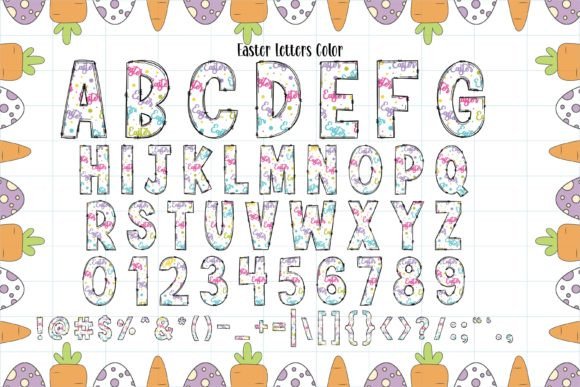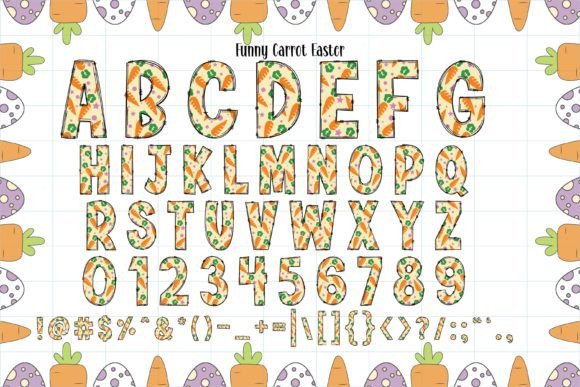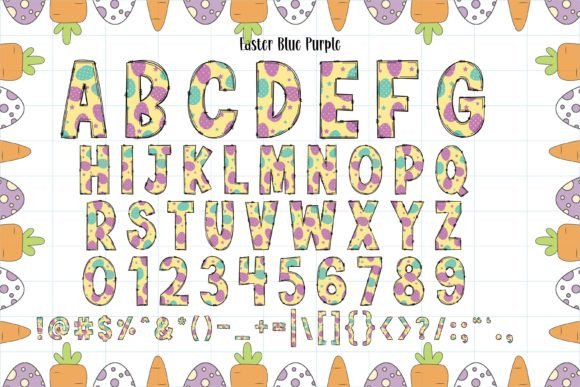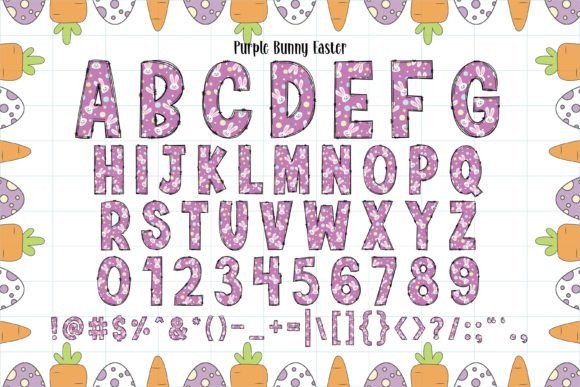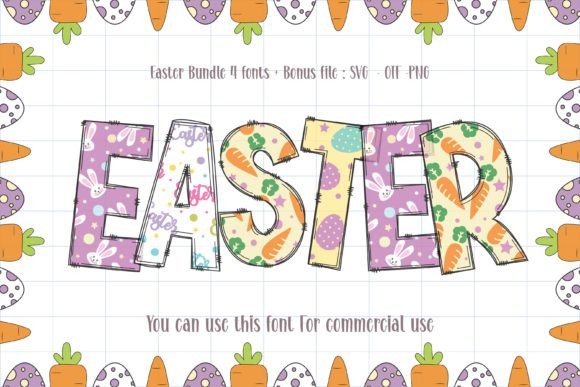
Easter Font: Add a Pop of Color to Your Designs
Easter is just around the corner, and what better way to celebrate than with a bold, fun, and attractive font that energizes your designs with vibrant hues? Look no further than the Easter Font, ideal for headlines, logos, and social media graphics. This unique and fun colored font is perfect for designers and crafters looking to add a touch of whimsy to their work.
What is Easter Font?
The Easter Font is a digital font that features vibrant, bold colors that are sure to make your designs stand out. With its fun and playful vibe, this font is perfect for creating eye-catching headlines, logos, and social media graphics. Whether you’re designing for Easter or just want to add a pop of color to your work, this font is sure to impress.
Key Features of Easter Font
- Bold and Vibrant Colors: The Easter Font features a range of vibrant colors that are sure to make your designs pop.
- Fun and Playful Vibe: This font has a fun and playful vibe that’s perfect for Easter-themed designs or any project that needs a touch of whimsy.
- Ideal for Headlines and Logos: The Easter Font is perfect for creating eye-catching headlines and logos that will grab attention.
- Social Media Graphics: Use this font to create engaging social media graphics that will stand out from the crowd.
- Easter-themed Designs: Use the Easter Font to create Easter-themed designs, such as Easter egg graphics, bunny logos, and spring-themed posters.
- Social Media Graphics: Use this font to create engaging social media graphics, such as Facebook posts, Instagram stories, and Twitter headers.
- Headlines and Logos: Use the Easter Font to create eye-catching headlines and logos for your website, blog, or business.
- Crafting Projects: Use this font to add a personal touch to your crafting projects, such as scrapbooking, card making, and DIY signs.
- Experiment with Colors: Don’t be afraid to experiment with different colors to find the perfect combination for your design.
- Mix and Match: Mix and match the Easter Font with other fonts to create a unique and interesting look.
- Use it Sparingly: Use the Easter Font sparingly to create emphasis and draw attention to specific parts of your design.
- Have Fun: Most importantly, have fun with the Easter Font! It’s a versatile and fun font that’s perfect for designers and crafters who want to add a touch of whimsy to their work.
The Easter Font is a bold, fun, and attractive font that energizes your designs with vibrant hues. Ideal for headlines, logos, and social media graphics, this unique and fun colored font is perfect for designers and crafters looking to add a touch of whimsy to their work. With its easy-to-use design and range of vibrant colors, the Easter Font is sure to become a favorite in your design arsenal. So why wait? Download the Easter Font today and start creating eye-catching designs that will stand out from the crowd!